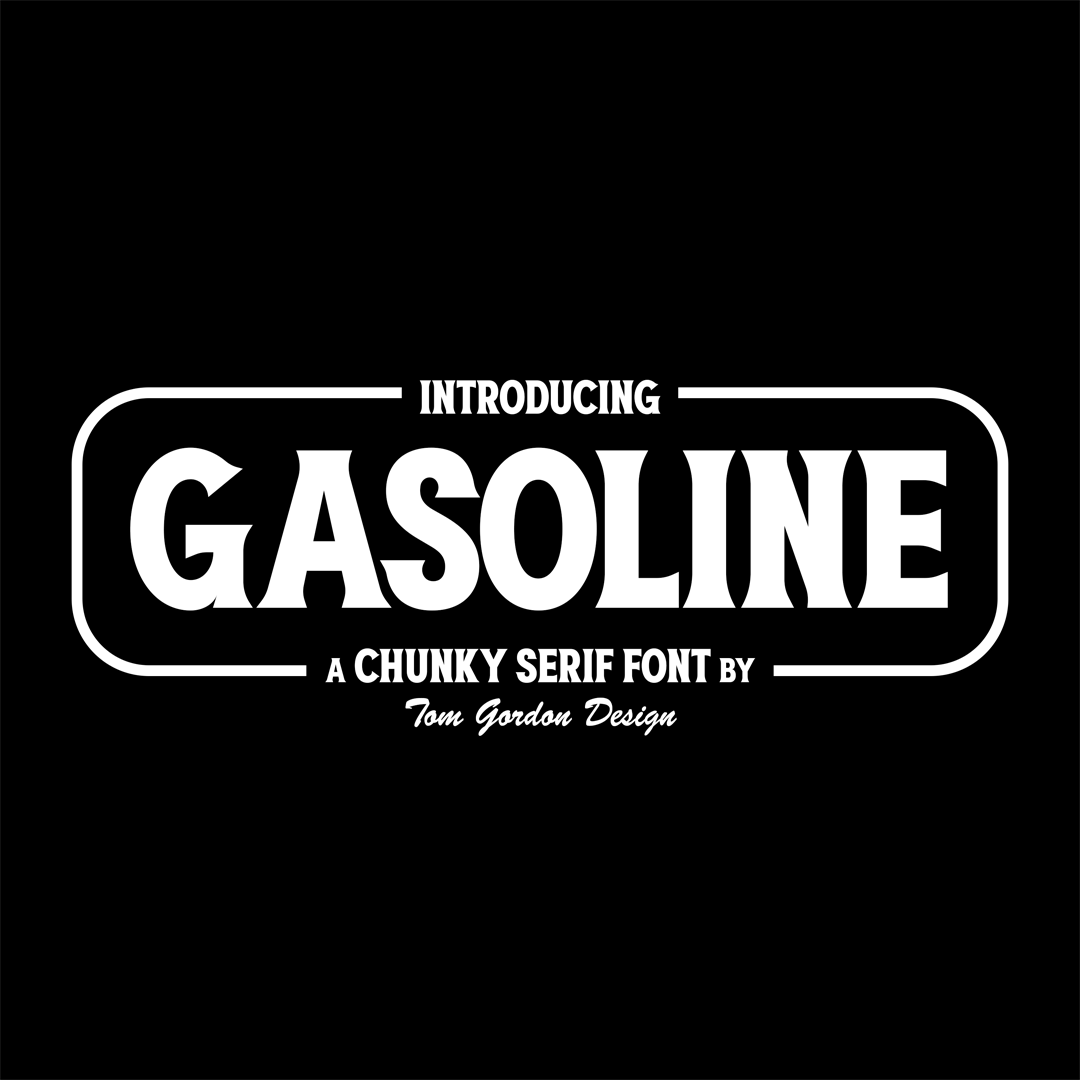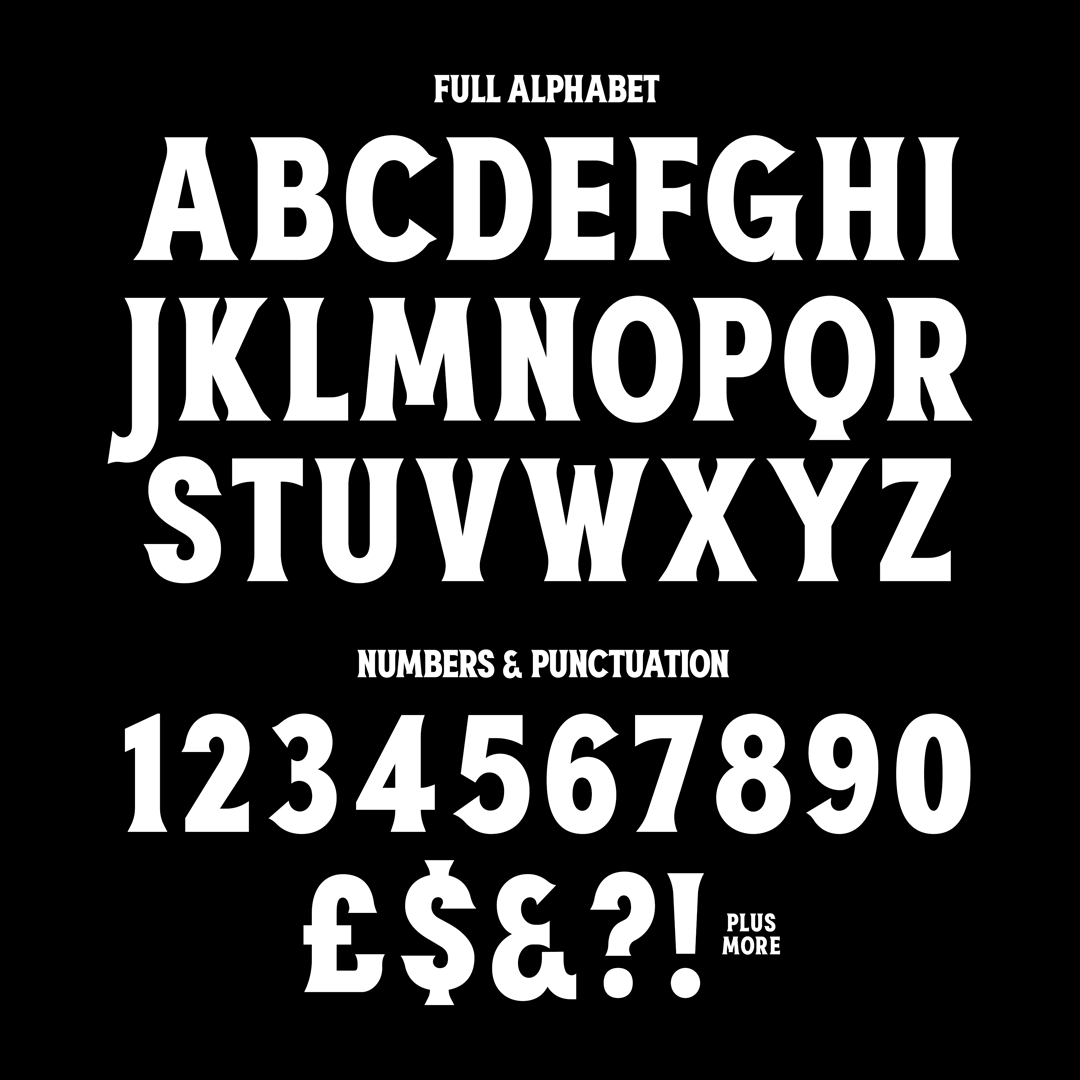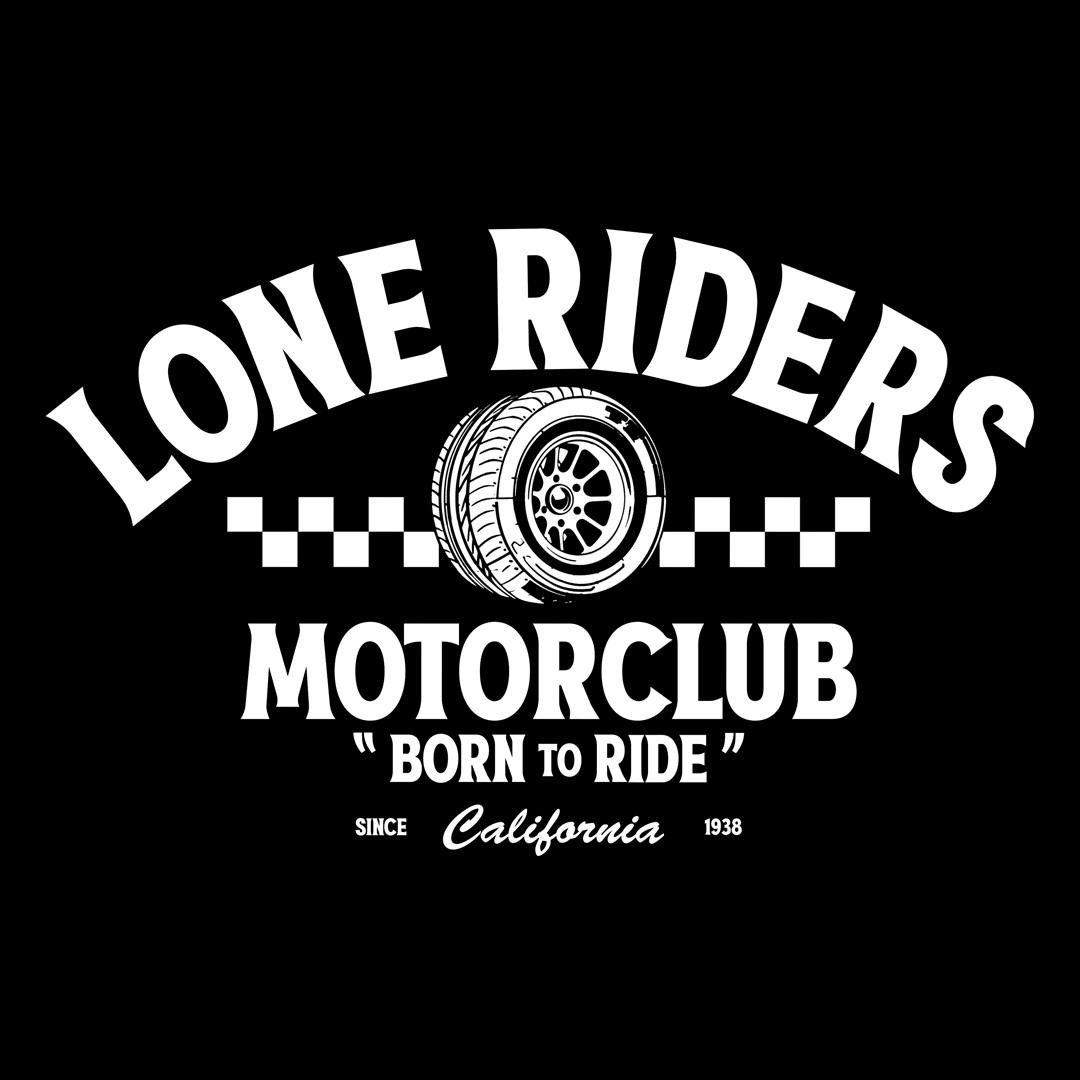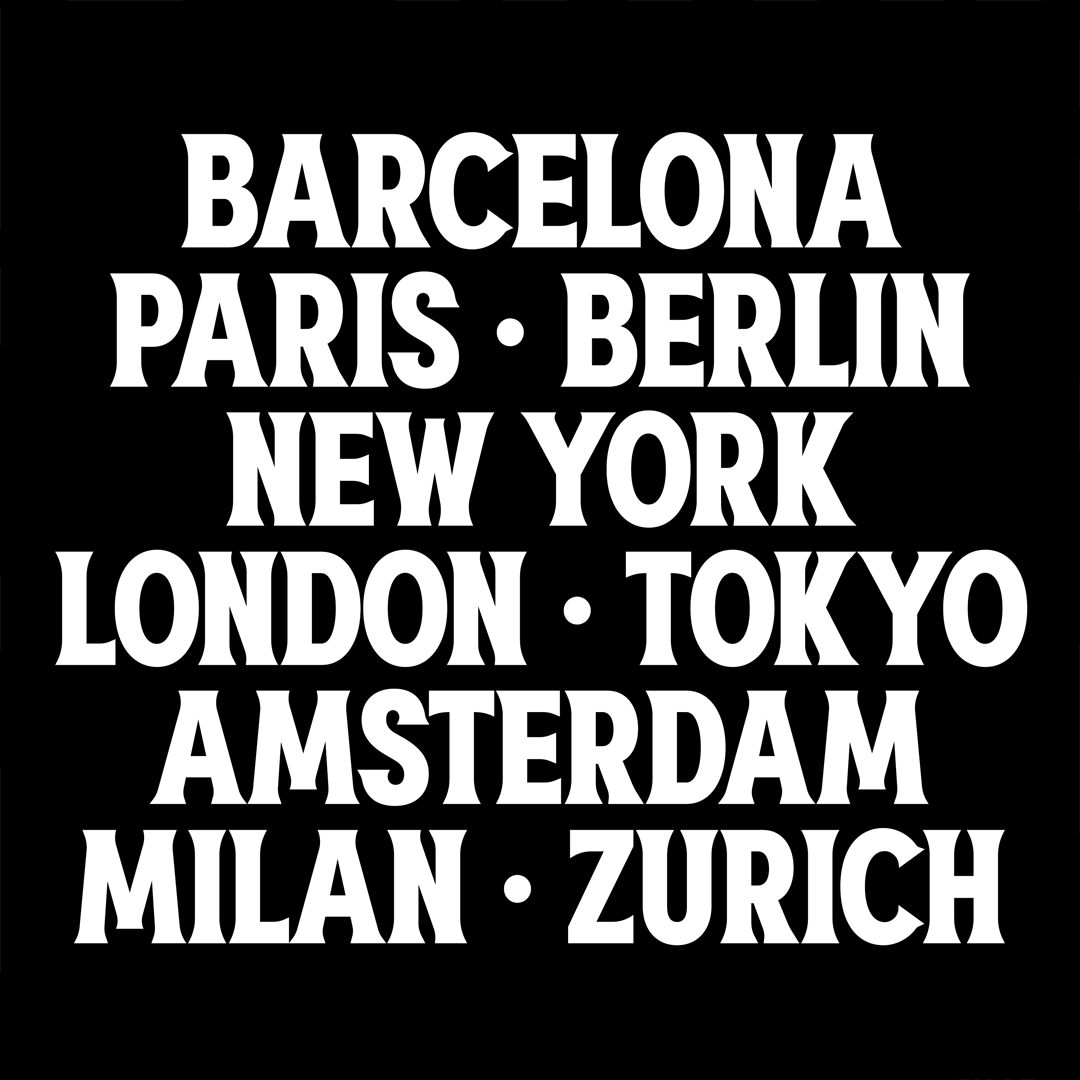
Introducing "Gasoline": A Bold New Serif Display Font
Inspired by classic motor company typefaces, Gasoline adds a modern twist to a timeless aesthetic. This dynamic serif font is perfect for designers seeking to create bold and exciting graphics that stand out from the crowd.
Ideal for:
Logos
Merchandise
Posters
Packaging
And much more!
Full alphabet
Numerals and essential punctuation